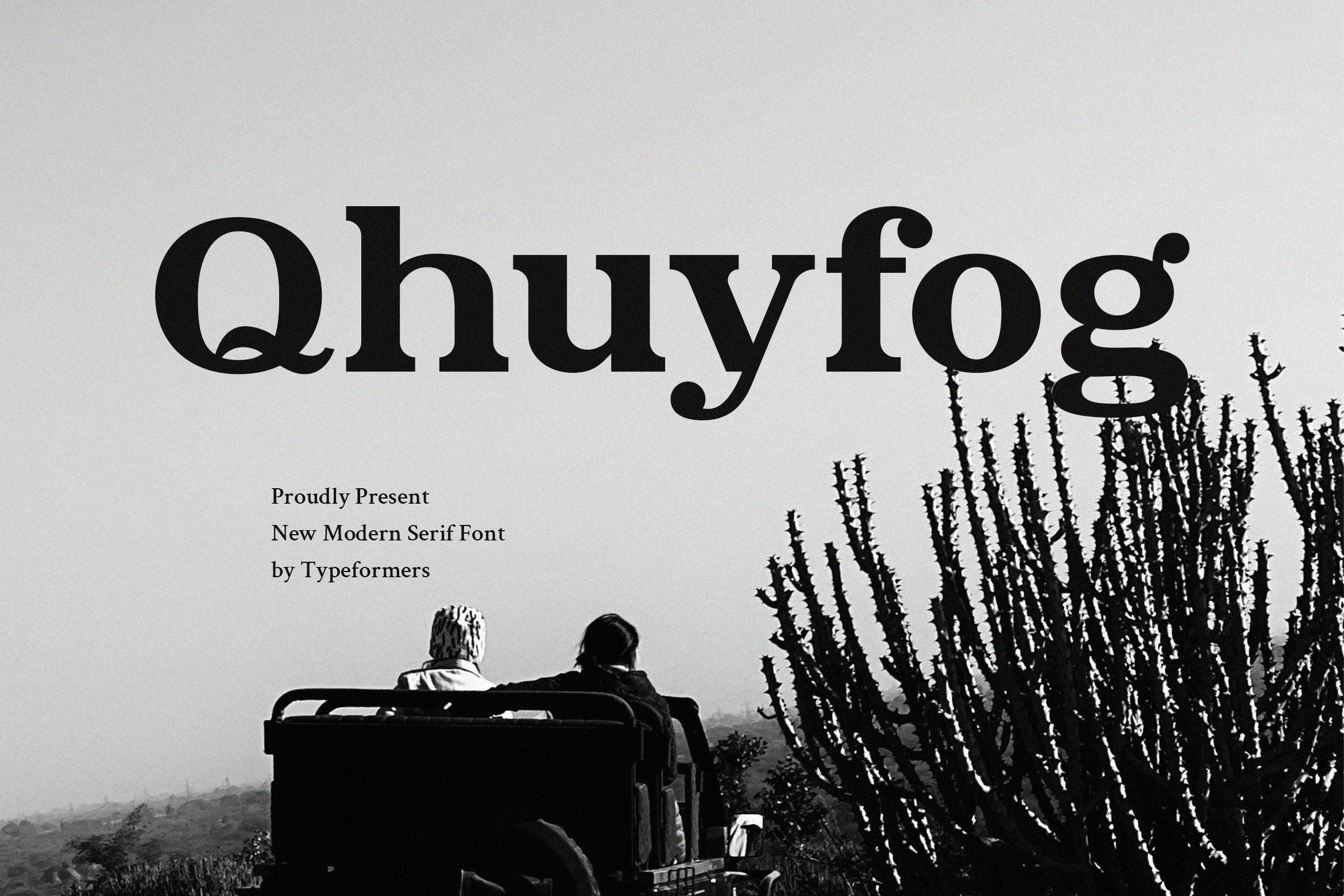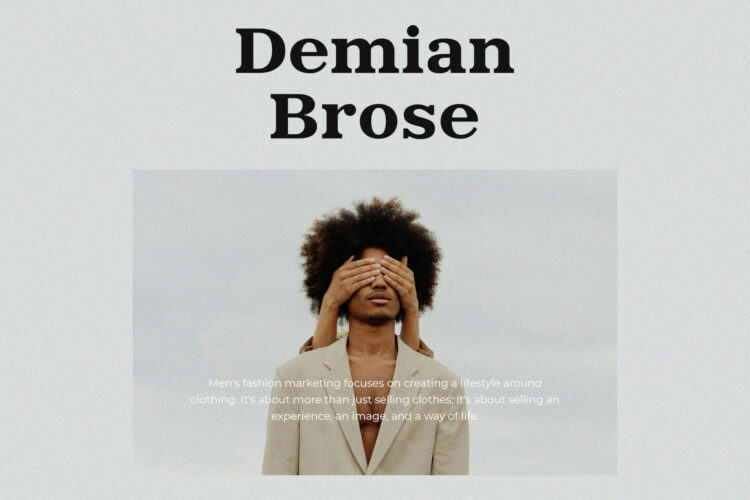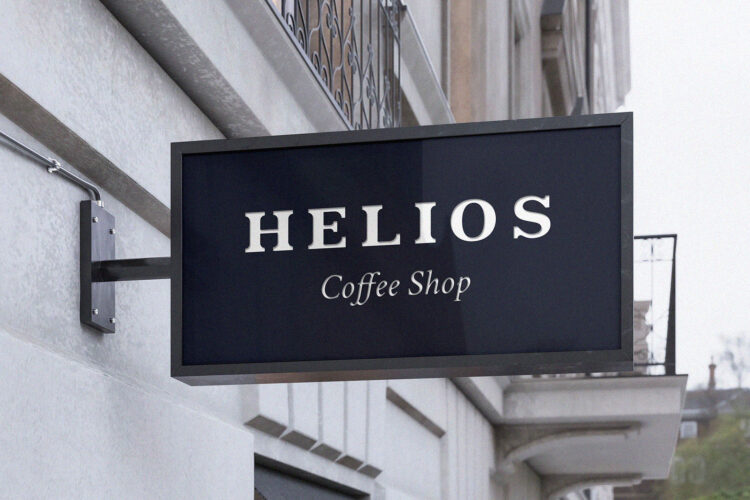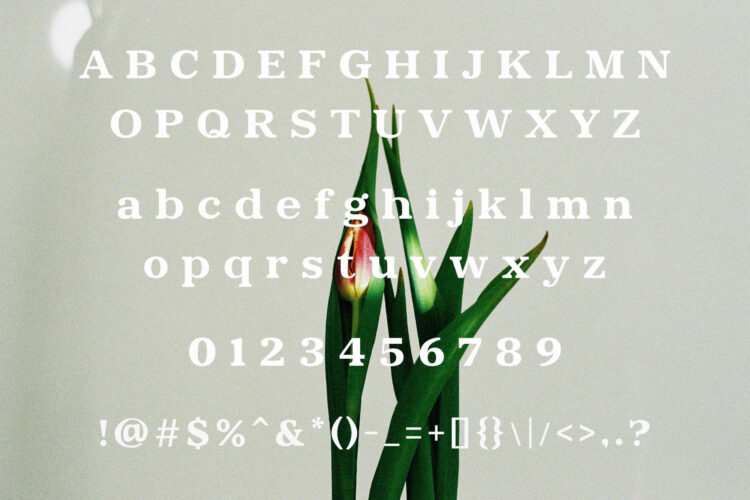
Introducing Qhuyfog – Modern Elegant Serif.
Qhuyfog is a modern and simple font, best used as a display for headings, logos, branding, magazines, product packaging and invitations.